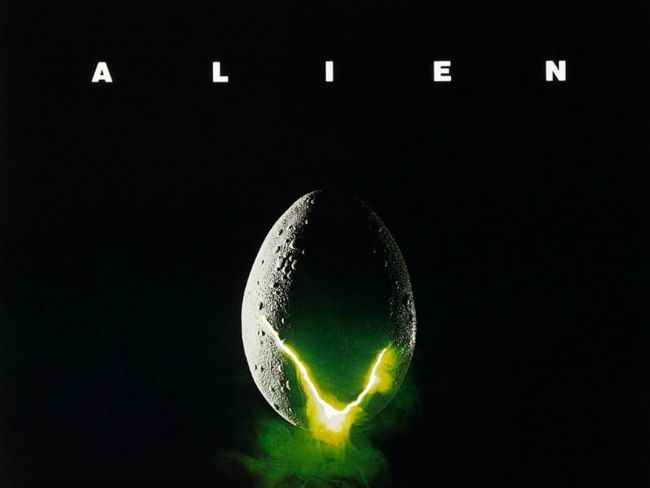
Alien Font
Alien Font breathes in the vacuum of space through chillingly sparse, geometric letterforms that isolate each character like crew members wandering doomed corridors. This typography masterfully weaponizes negative space and clinical precision, transforming minimalism into existential dread that crawls beneath your skin long before the xenomorph appears.
In the original movie poster, the letters are spaced far apart, clean, and geometric, giving the impression of emptiness and the vast unknown of space. This simplicity is what makes the Alien font so powerful—it feels sterile on the surface but hides a sense of dread underneath. Designers use this style when they want to create something futuristic, isolated, or mysterious.
While the exact Alien font was custom-designed for the film, there are several alternatives that come very close. Fonts like Alte Haas Grotesk, Helvetica Black or Futura Extra Bold can mimic the sharp minimalism, while free options such as Eurostile Bold Extended or Michroma also capture that futuristic sci-fi essence.
Alien Font haunts space exploration branding, horror-sci-fi hybrids, biohazard warnings, and dystopian tech interfaces—where silence becomes the loudest scream.